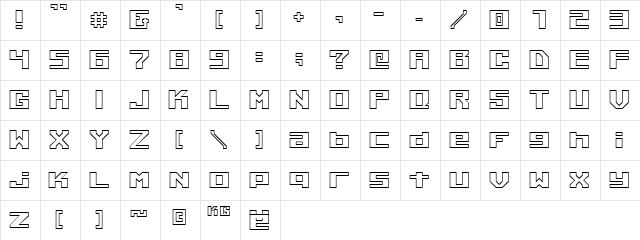
Kiloton Outline Normal
Design Context for Kiloton Outline Typeface
Kiloton Outline is built around its visual character rather than neutral utility — its distinctive forms are designed to make an impression at display sizes.
Font Pairing: Pair with a clean neutral sans-serif for body copy to let Kiloton Outline's character lead without overwhelming the composition.
Pro Tip: Use Kiloton Outline exclusively at display sizes — it was designed to be seen, not read at length. Let a neutral companion handle body copy.